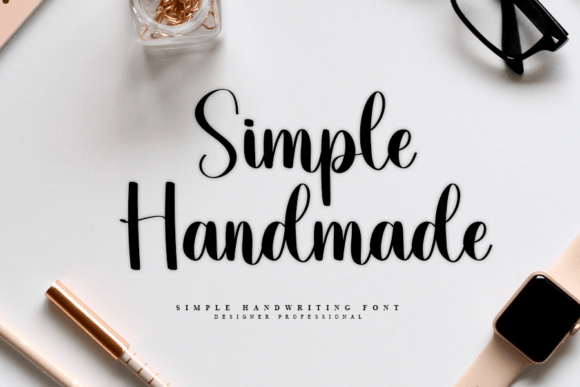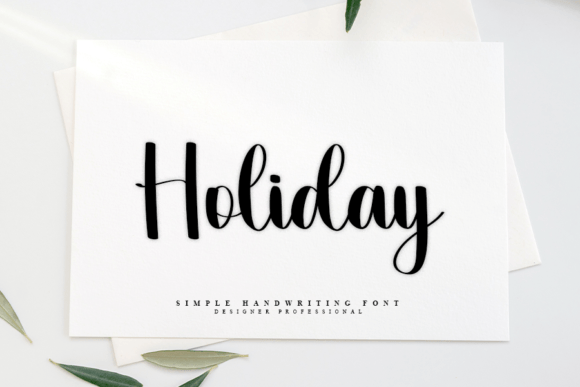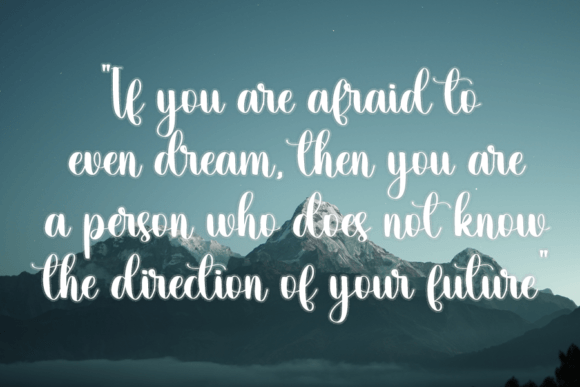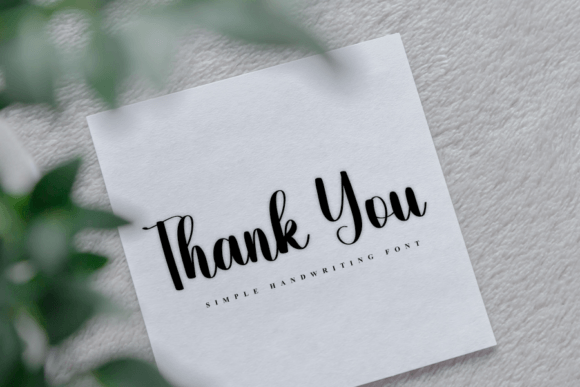
Introducing Autumn Font: A Delicate Handwritten Style for Unique Designs
As the seasons change and the air grows crisp, designers and crafters are on the lookout for fresh inspiration and new fonts to add a touch of autumnal charm to their projects. If you’re searching for a font that embodies the warmth and coziness of the season, look no further than Autumn Font. This beautiful, delicate handwritten font is carefully crafted to bring a cool and unique design to your letters, invitations, food products, titles, and more.
The Characteristics of Autumn Font
Autumn Font is a true gem, boasting a range of characteristics that make it perfect for designers and crafters seeking a distinctive and eye-catching style. Some of the key features of this lovely font include:
- Delicate Handwritten Style: Autumn Font is a carefully crafted handwritten font, with each letter and character meticulously designed to create a soft, elegant look.
- Unique and Cool Design: This font’s unique design makes it perfect for adding a touch of sophistication and whimsy to your projects, from invitations and letters to food labels and titles.
- Versatile: Whether you’re creating a warm and cozy autumn-themed project or simply looking for a beautiful font to add some personality to your designs, Autumn Font is the perfect choice.
Uses for Autumn Font
With its delicate, handwritten style and unique design, Autumn Font is perfect for a wide range of projects, including:
- Letters and Invitations: Add a touch of autumnal charm to your letters and invitations, making them perfect for special occasions like Thanksgiving, Halloween, or simply to catch up with friends and family.
- Food Products: Use Autumn Font to create eye-catching labels and packaging for your homemade food products, such as jams, honey, or baked goods.
- Titles and Headings: Add a touch of elegance and sophistication to your titles and headings, making them perfect for blog posts, articles, or social media graphics.
- DIY Projects: Autumn Font is also perfect for crafters and DIY enthusiasts, adding a personal touch to handmade projects like signs, cards, and gift tags.
Tips for Using Autumn Font
To get the most out of Autumn Font, here are a few tips to keep in mind:
- Pair with Other Fonts: Autumn Font pairs beautifully with other fonts, so don’t be afraid to experiment with different combinations to create a unique look.
- Experiment with Colors: The delicate, handwritten style of Autumn Font looks beautiful in a range of colors, from warm autumnal hues like orange and yellow to cool, calming shades like blue and green.
- Add Texture and Patterns: Consider adding texture and patterns to your designs to give them an extra layer of depth and interest.
Autumn Font is a beautiful, delicate handwritten font that’s perfect for designers and crafters seeking a unique and eye-catching style. With its cool and unique design, versatile uses, and range of applications, this font is sure to become a favorite in your design arsenal. So why not give Autumn Font a try and see how it can add a touch of autumnal charm to your projects?
- What is Autumn Font?: Autumn Font is a delicate handwritten font carefully crafted for a cool and unique design.
- What can I use Autumn Font for?: Autumn Font can be used for a wide range of projects, including letters, invitations, food products, titles, and more.